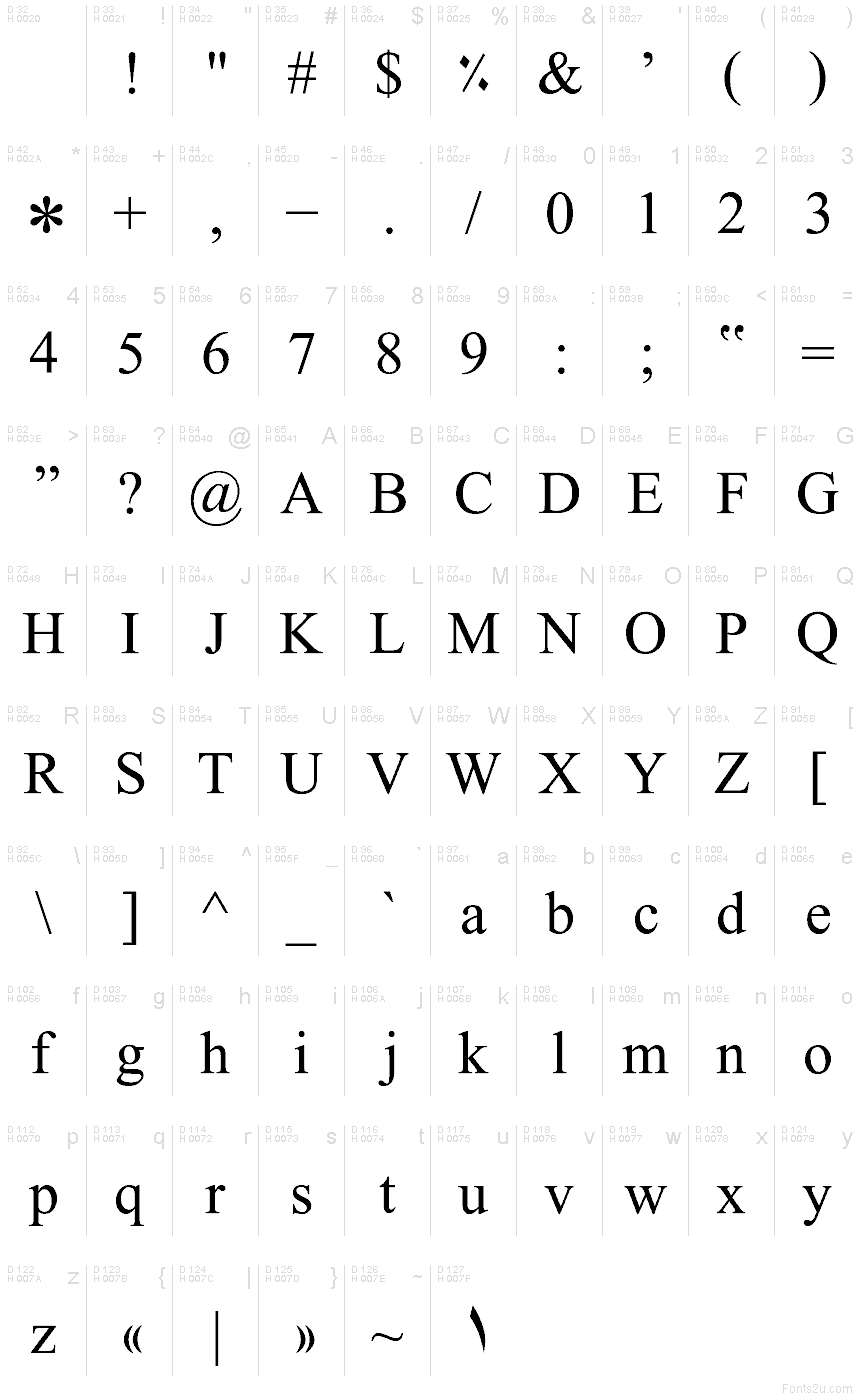
Umarila2 Regular
Umarila2 font is a serif typeface that features soft curves, wide internal spaces, and calligraphic end strokes. This free serif font embodies elegance, sophistication, and formality making it a great choice for decorative purposes. It draws inspiration from the past yet retains up-to-date elements recognizable in classic typefaces.